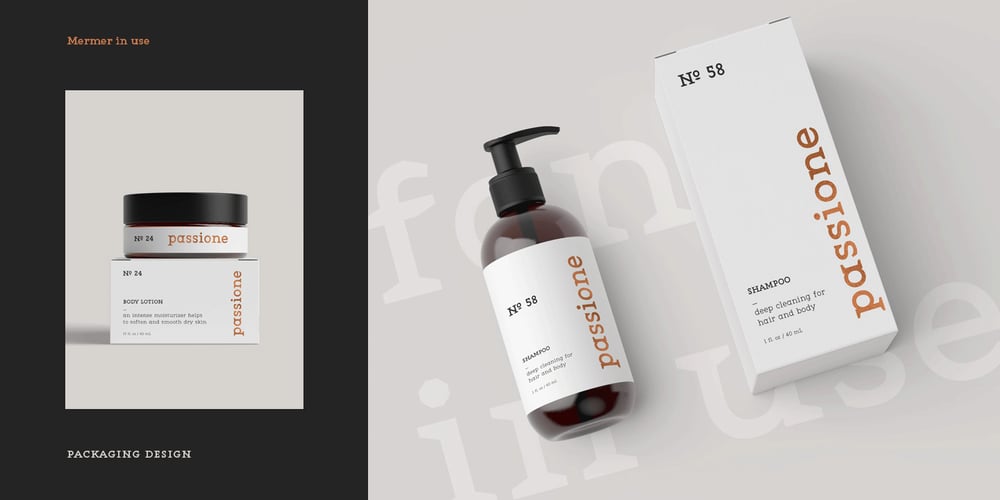
Mermer Font Family was designed by Jana Orsolic and published by Jana Orsolic. Mermer contains 6 styles and family package options. Mermer font family is a contemporary take on Roman capitals in six weights. The font name is the Serbian word for marble, and the inspiration for its creation comes from chiseled street signs in Istria. With lowercase and Cyrillic added, it gets a broader range of usages. Mermer is bold and versatile, can be both sporty and high fashion, looking sharp in more than 40 languages. Thin is thorny and Heavy feels like a block of concrete. Make it LOUD by setting it in large sizes and choosing Mermer Heavy for posters, magazine headings or logos, or you can make it cosy and friendly setting it smaller in Mermer Regular for menus, book covers, invitations or business cards.